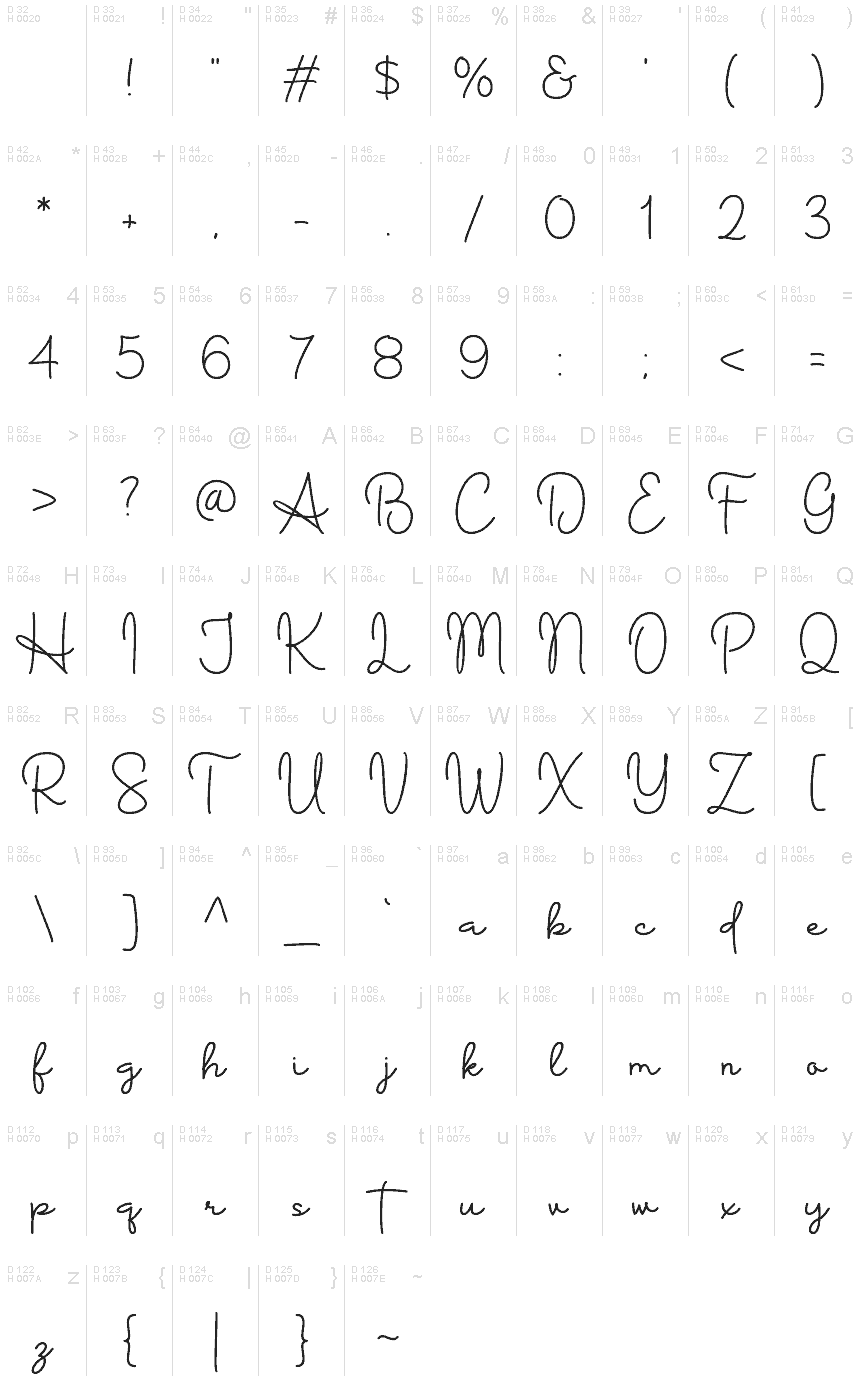
Huntgraphy
Huntgraphy font by MJType is a handwritten light font that carries a subtle elegance and a personal touch. With its expressive modern style, it can add an authenticity to projects belonging to different fields. The curves are soft and the letters maintain a natural flow with each word and paragraph. The font is clear, stylish, filled with personality.